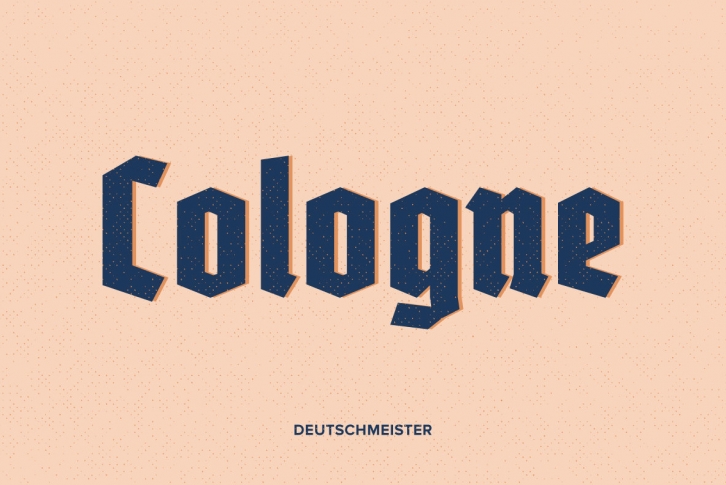
This crisp and constructed Ludwig Wagner, Leipzig, blackletter font in textura style had been originally designed by Berthold Wolpe. Freshly redrawn and redesigned, it adds now to the treasure trove of historic typefaces.
This font contains a bunch of useful ligatures, and by typing 'N', 'r' and period plus activating the discretionary ligatures you get an old style number sign. As usual in my blackletter fonts, the # key is occupied by the 'round' s.